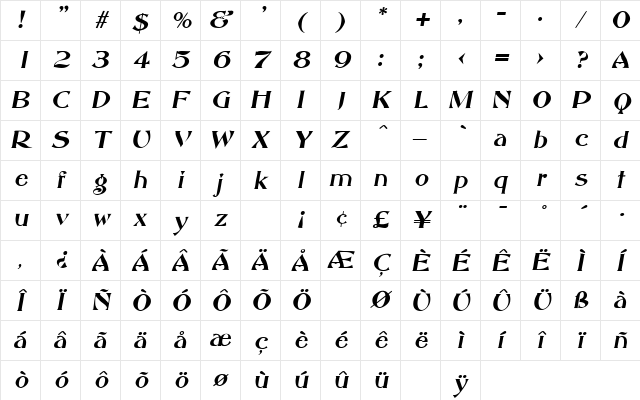
Complete AbottOldStyle Italic glyph index. Displaying only characters natively supported by AbottOldStyle Italic font.
AbottOldStyle carries the refined structure of traditional serif typography, with bracketed terminals and considered proportions that communicate credibility and craft. The slanted form adds forward momentum and visual energy.
Pro Tip: Use AbottOldStyle for editorial body copy and considered headline work. Pair with a neutral sans for UI elements or captions to create a classic hierarchy.